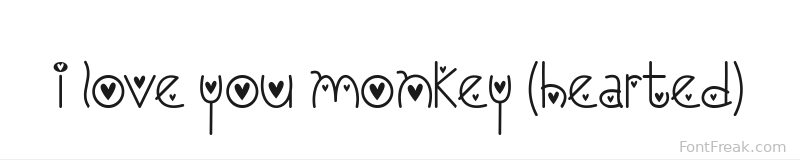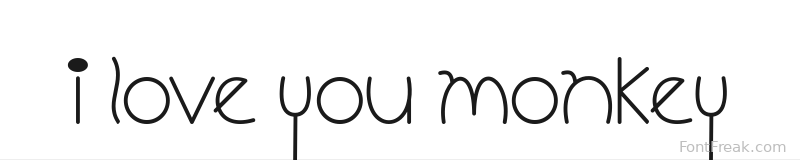
I Love You Monkey (Hearted)
I Love You Monkey
I Love You Monkey (Hearted) is a whimsical, handwritten font created by Misti Hammers, perfect for adding a playful touch to your designs. This decorative typeface features charming, rounded letterforms with a fun and quirky flair that captures attention. The stroke weight is consistent throughout, providing a uniform look, while the varying heights and playful curves add character. The spacing is well-balanced, enhancing readability without sacrificing its unique style. The font includes delightful decorative elements, such as heart shapes integrated into some letters, making it especially appealing for romantic or cheerful projects.
This font is particularly well-suited for a variety of creative applications. It shines in wedding invitations, where its playful nature can convey love and joy. Additionally, it works wonderfully for children's book covers, capturing a fun and imaginative spirit. Restaurant menus can also benefit from the friendly and inviting appearance of I Love You Monkey (Hearted), making them more approachable. Furthermore, it can be an excellent choice for greeting cards, providing a charming touch for special occasions.
Targeting graphic designers, small business owners, and content creators, this font allows for an expressive way to communicate messages and brand identities. Its approachable style resonates well with audiences looking for a light-hearted, joyful aesthetic.
What sets the I Love You Monkey (Hearted) font apart is its ability to infuse personality into any project. The combination of whimsy and readability makes it a versatile choice for anyone looking to add a distinctive flair to their design work. For those interested, the I Love You Monkey (Hearted) font free download makes it easily accessible for all your creative endeavors.